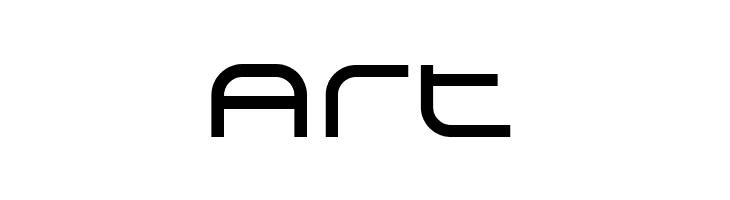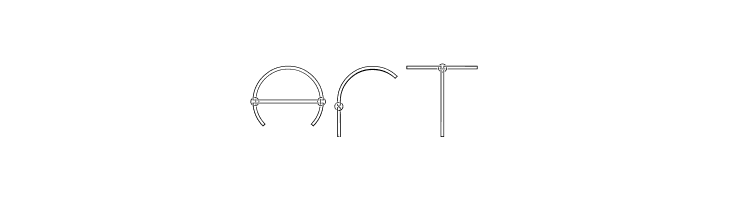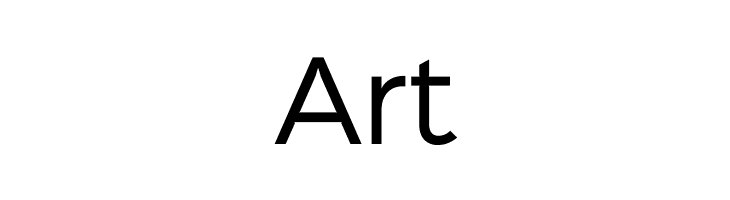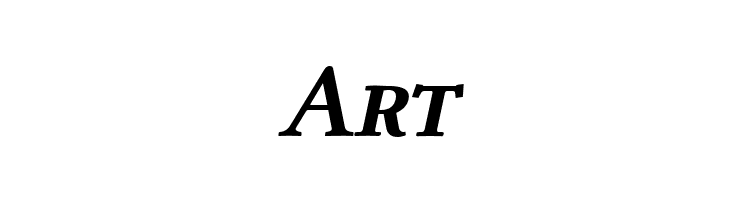
( Extram Studios )
A modern, geometric font with consistent line weight and balanced spacing.
( Glyphobet Font Foundry - glyphobet.net/typography/ )
A geometric and intricate font with knot-like designs and consistent line weight.
( K-Type - www.k-type.com )
A clean, modern sans-serif font with medium weight and balanced proportions.
( K-Type - www.k-type.com )
A clean, modern sans-serif font with consistent stroke weight and balanced spacing.
( K-Type - www.k-type.com )
A modern, medium-weight sans-serif font with an italic slant and balanced proportions.
( Linux Libertine - www.linuxlibertine.org )
A classic serif typeface with semi-bold weight and italic style, offering elegance and readability.
( Linux Libertine - www.linuxlibertine.org )
A classic serif font with a semi-bold weight, offering elegance and readability.
( Linux Libertine - www.linuxlibertine.org )
A classic serif font with semi-bold weight and italic style, offering elegance and readability.
( Neogrey Creative - www.neogrey.com )
A futuristic, geometric font with bold weight and clean lines.
( Nick Seils - www.behance.net/nseils )
A modern, italic font with a sleek, condensed style and consistent stroke weight.